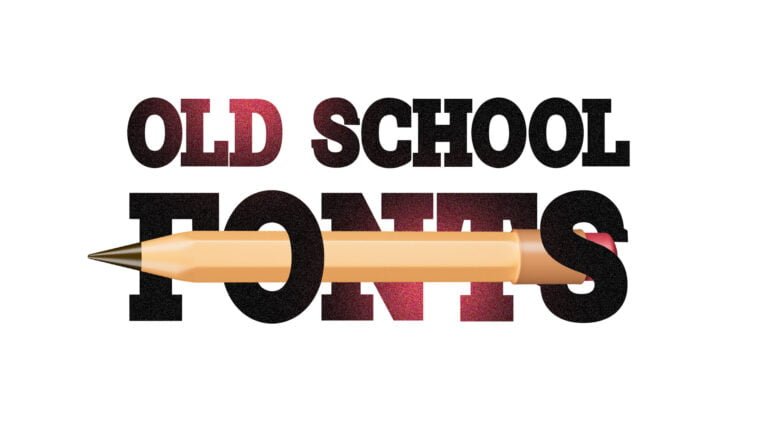
Best Old School Fonts Add a classic touch to your designs with our free old school fonts! From traditional typewriter fonts to vintage script and serifs, these fonts add a timeless flair to any project. With a variety of styles to choose from, you are sure to find the perfect font to fit your needs. Download now and add a touch of nostalgia to your work!
United Font
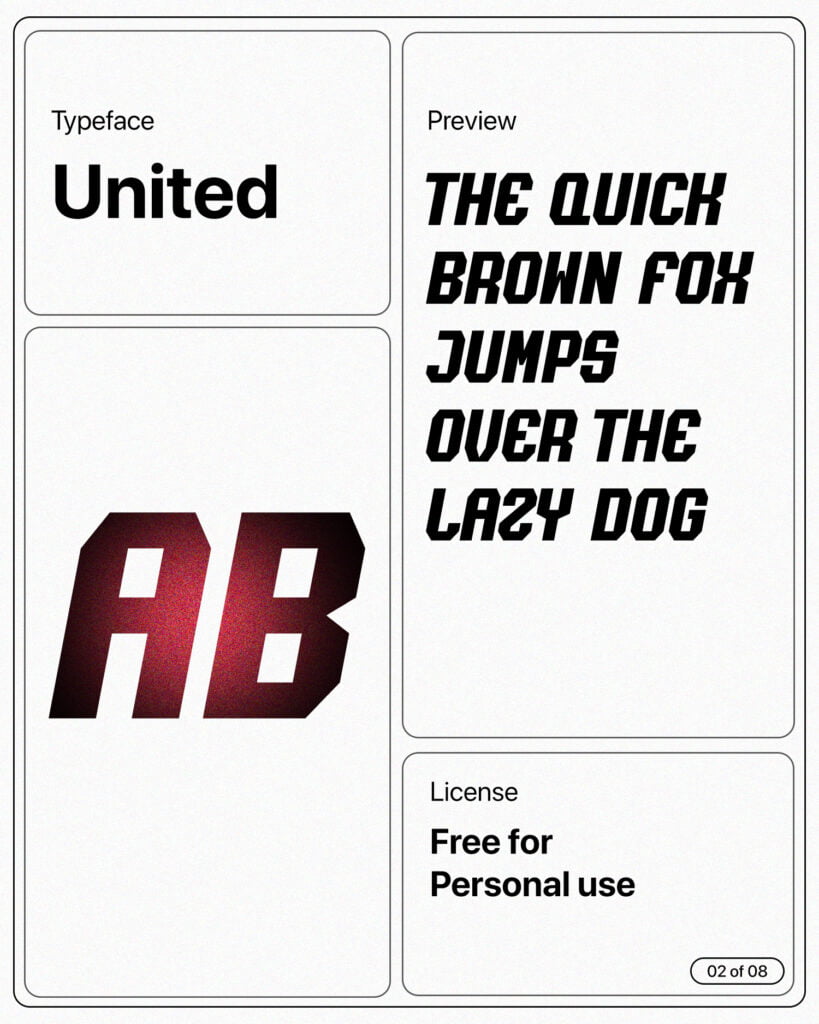
Stune Font
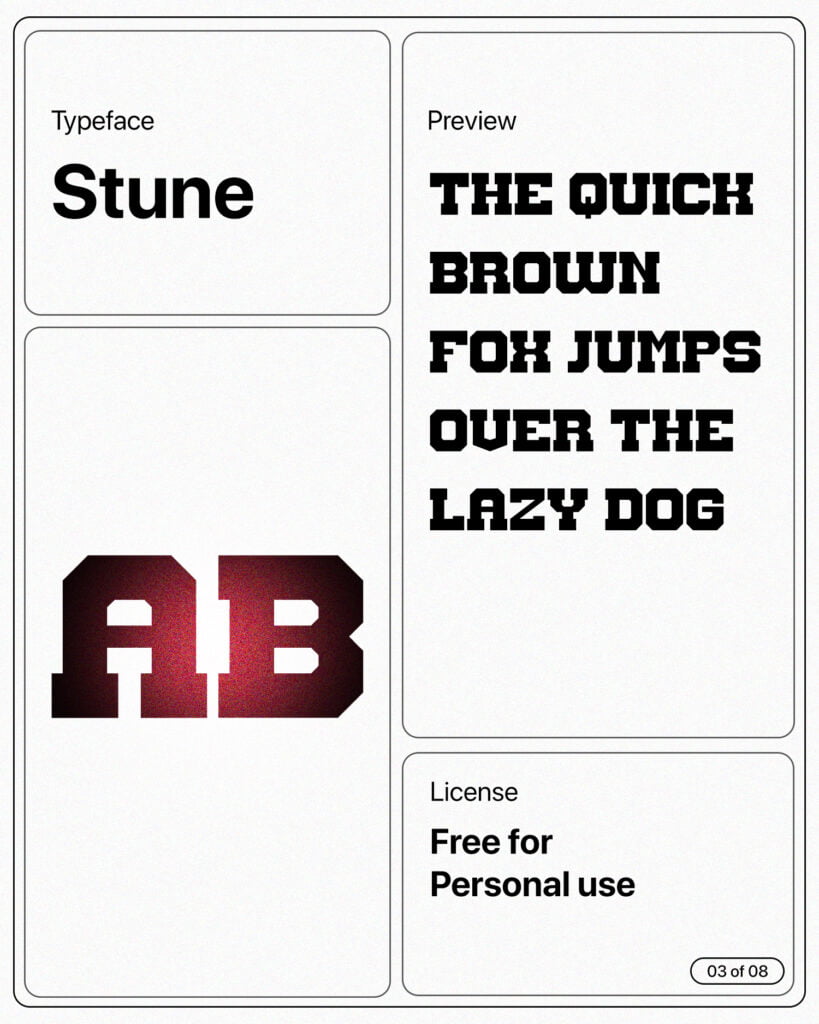
Ranked Sports Font
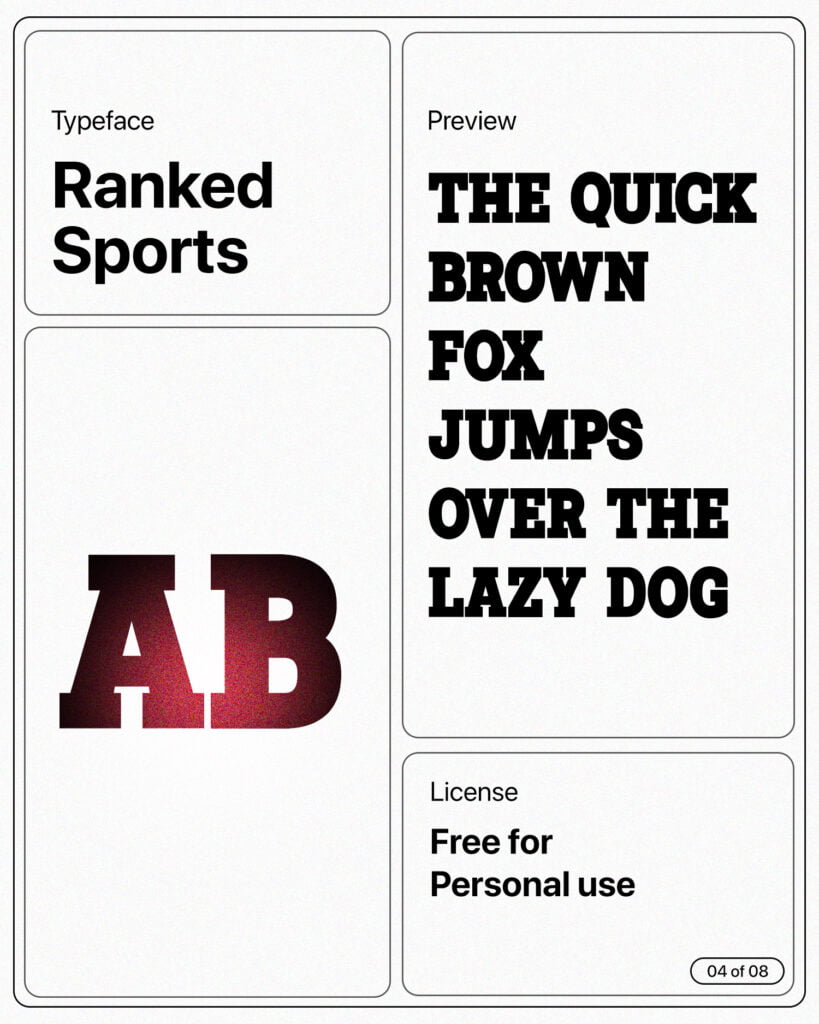
Mousony Font
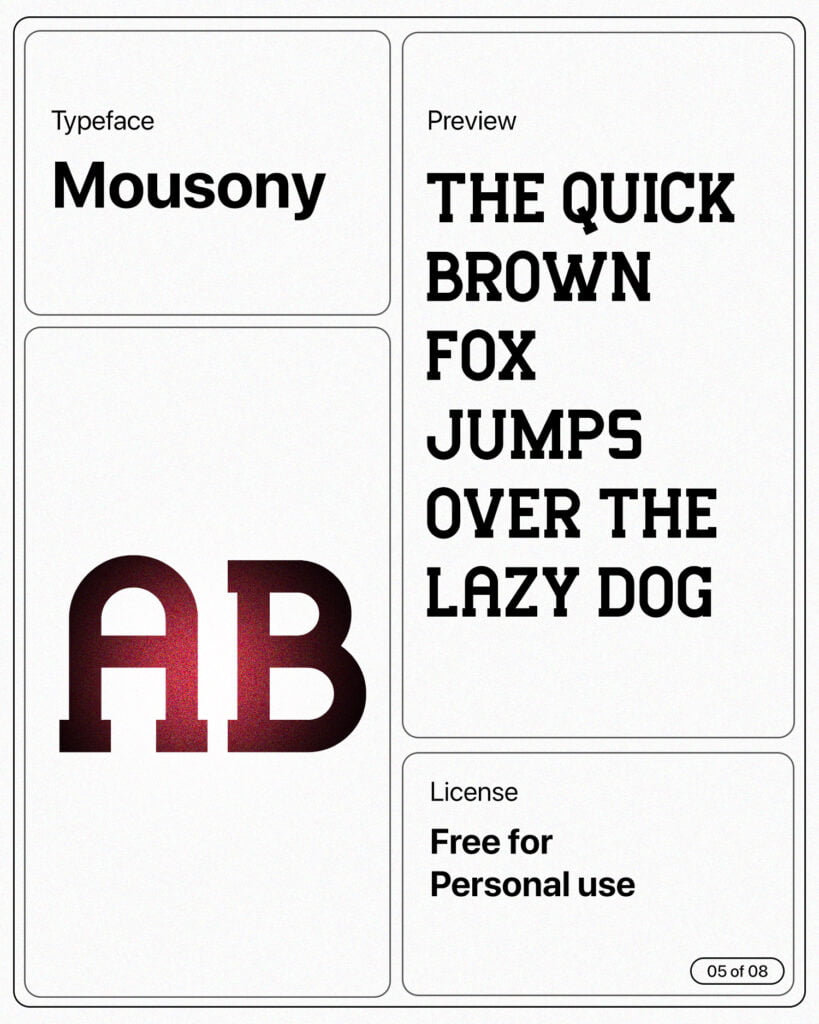
Extreme Font
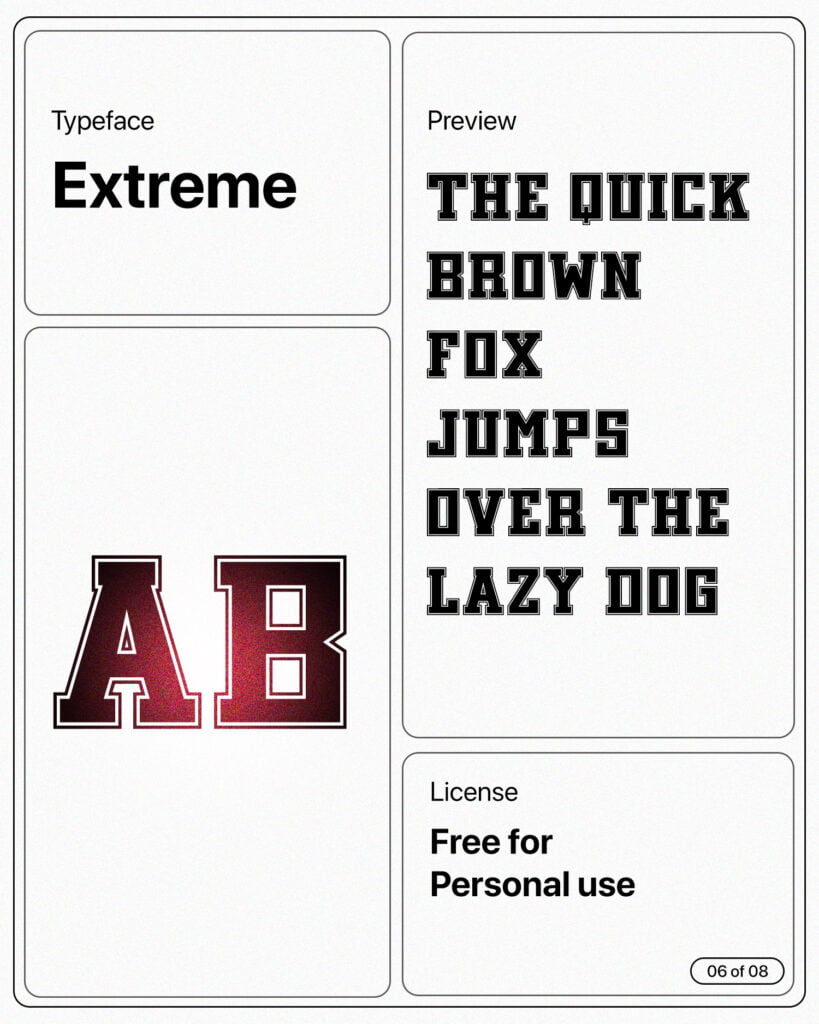
Become Font